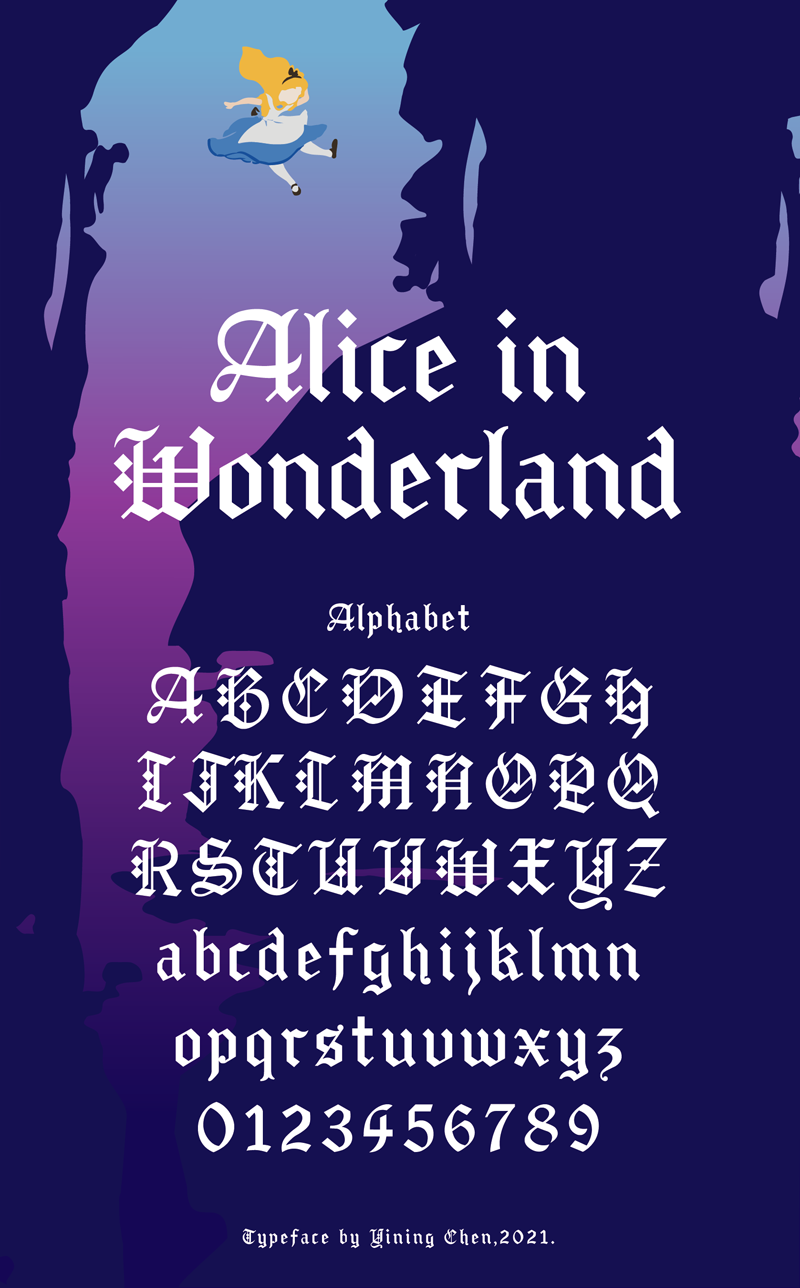
Preview and download Alice in Wonderland Font. Created by Chen Yining in Gothic Modern styles with 100% Free license.
This is a medieval Gothic font. It's a professional version which was complicated hand-made and computer-generated graphics, and various revisions. After installing on the computer, you can create posters, web graphics, game graphics, t-shirts, videos, signs, logos and more. These fonts are 100% for both personal and business usages. If there is any question, please feel free to contact me. yiningchen23@gmail.com |